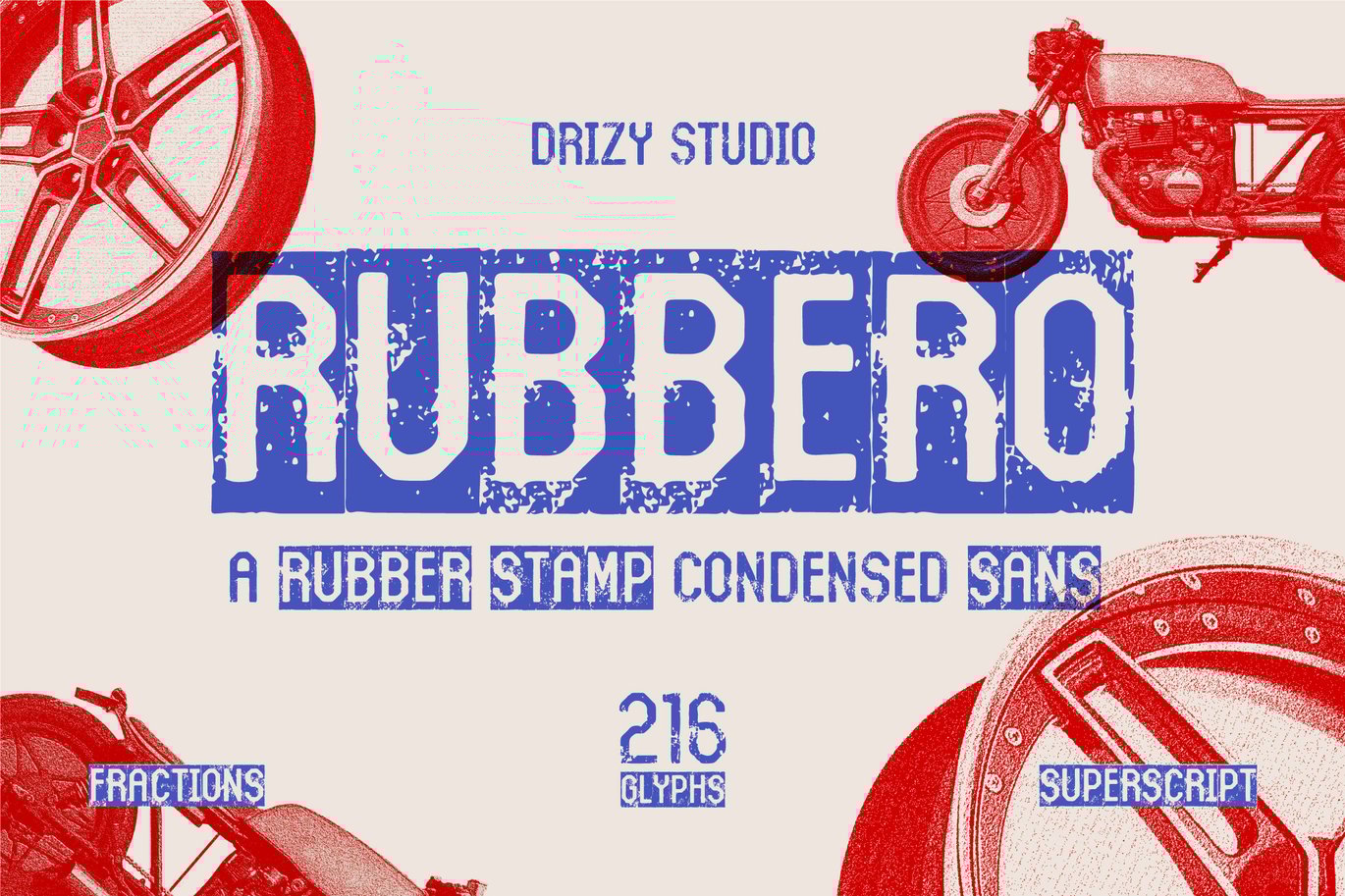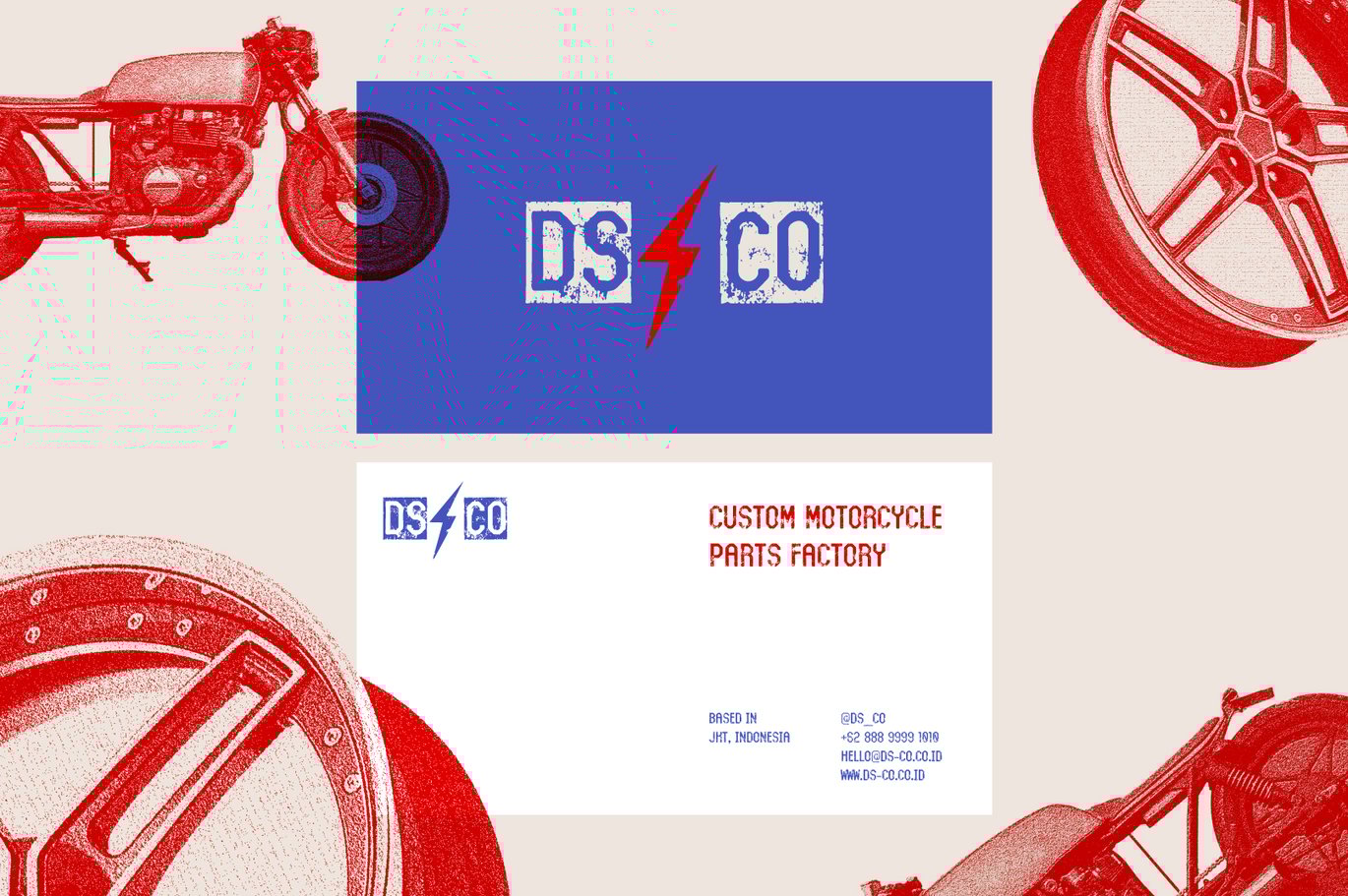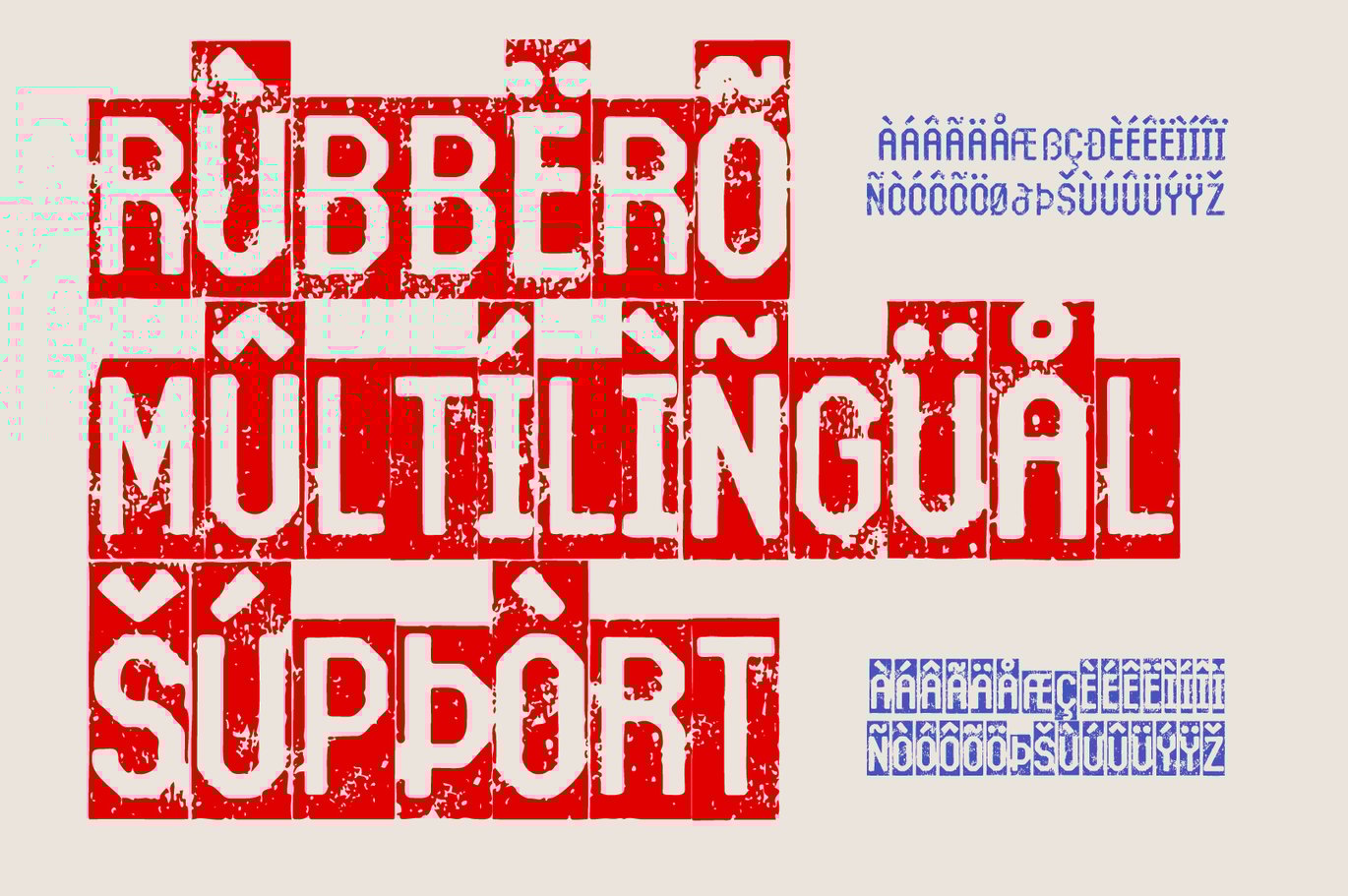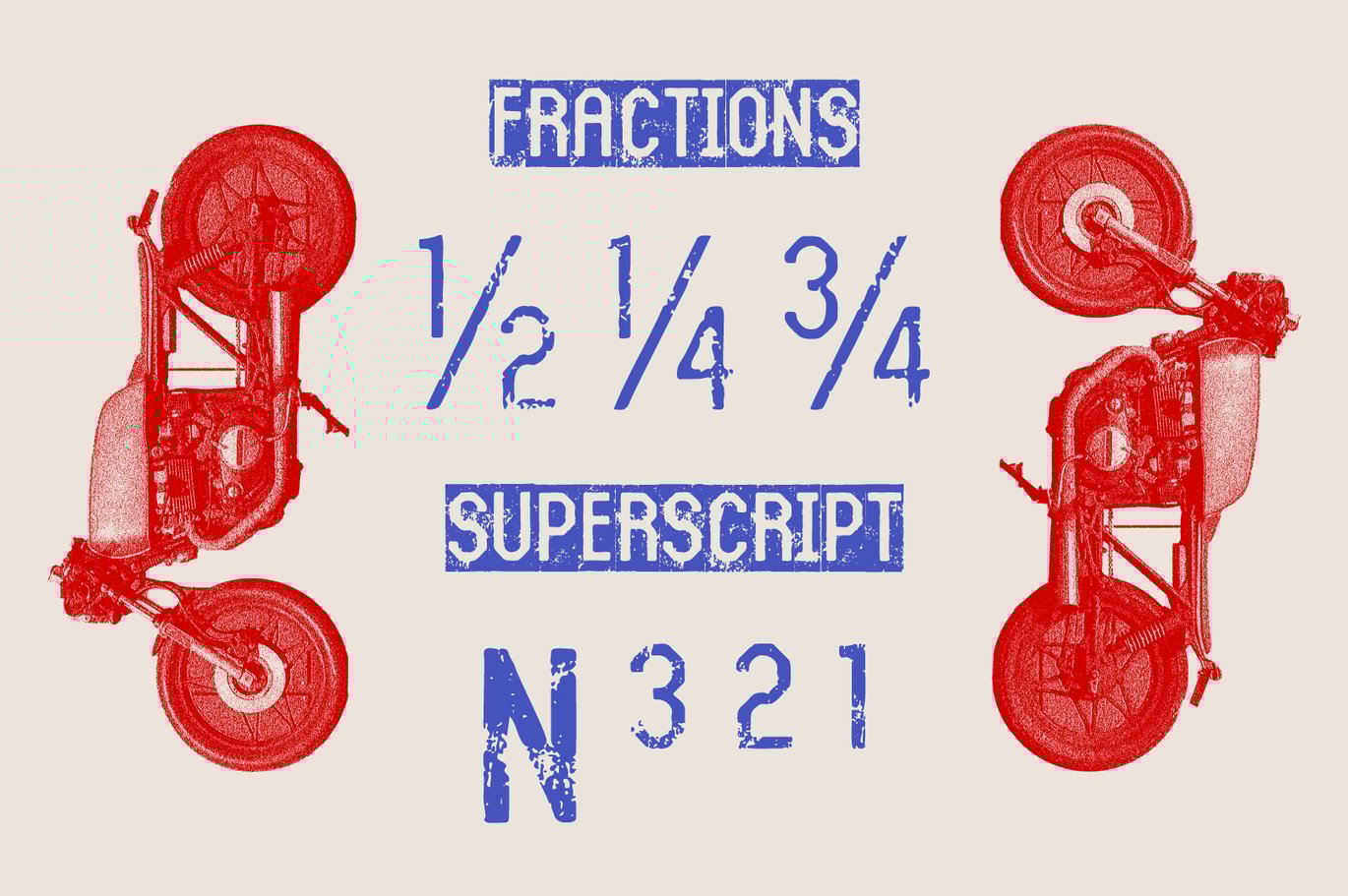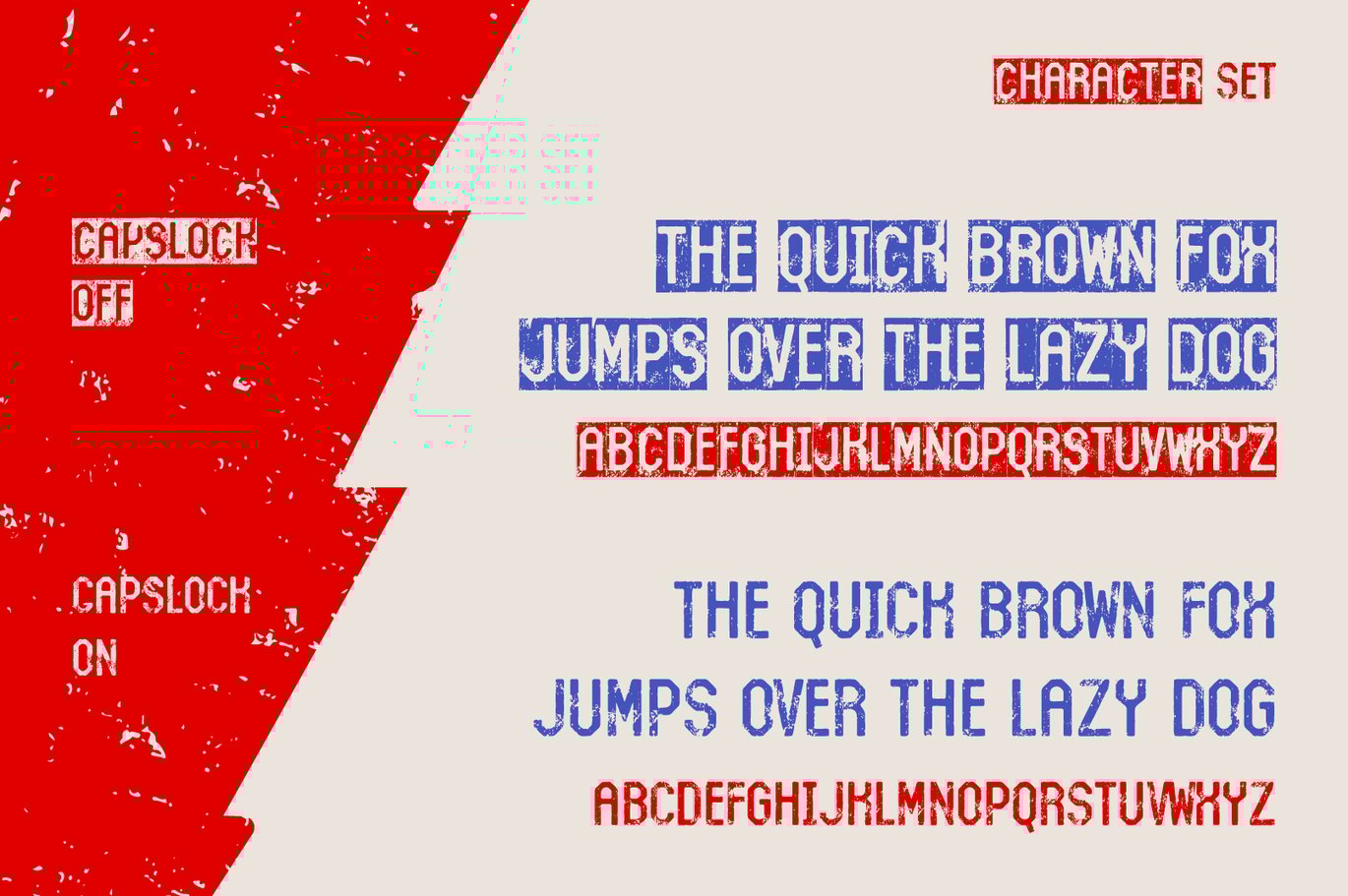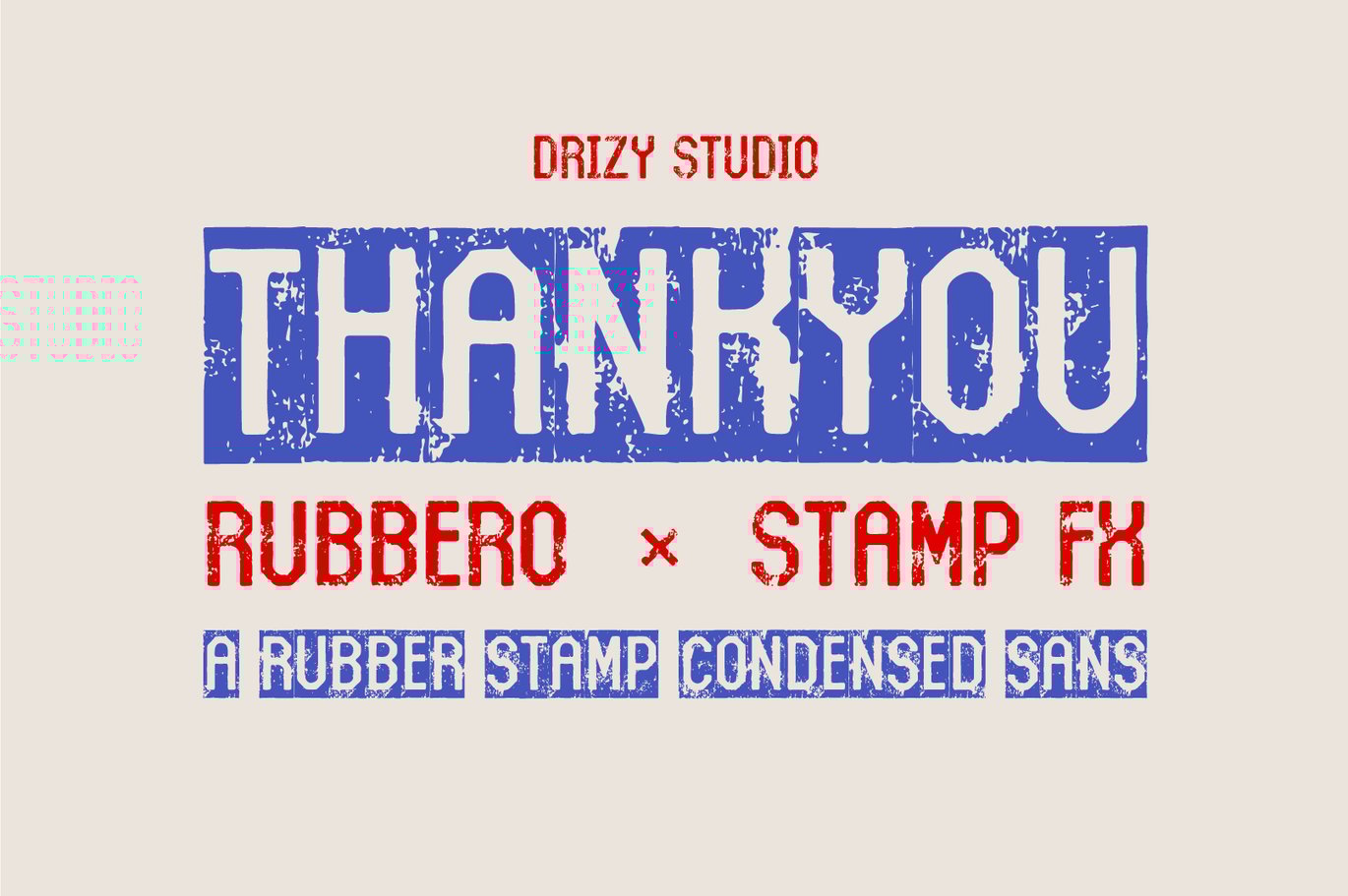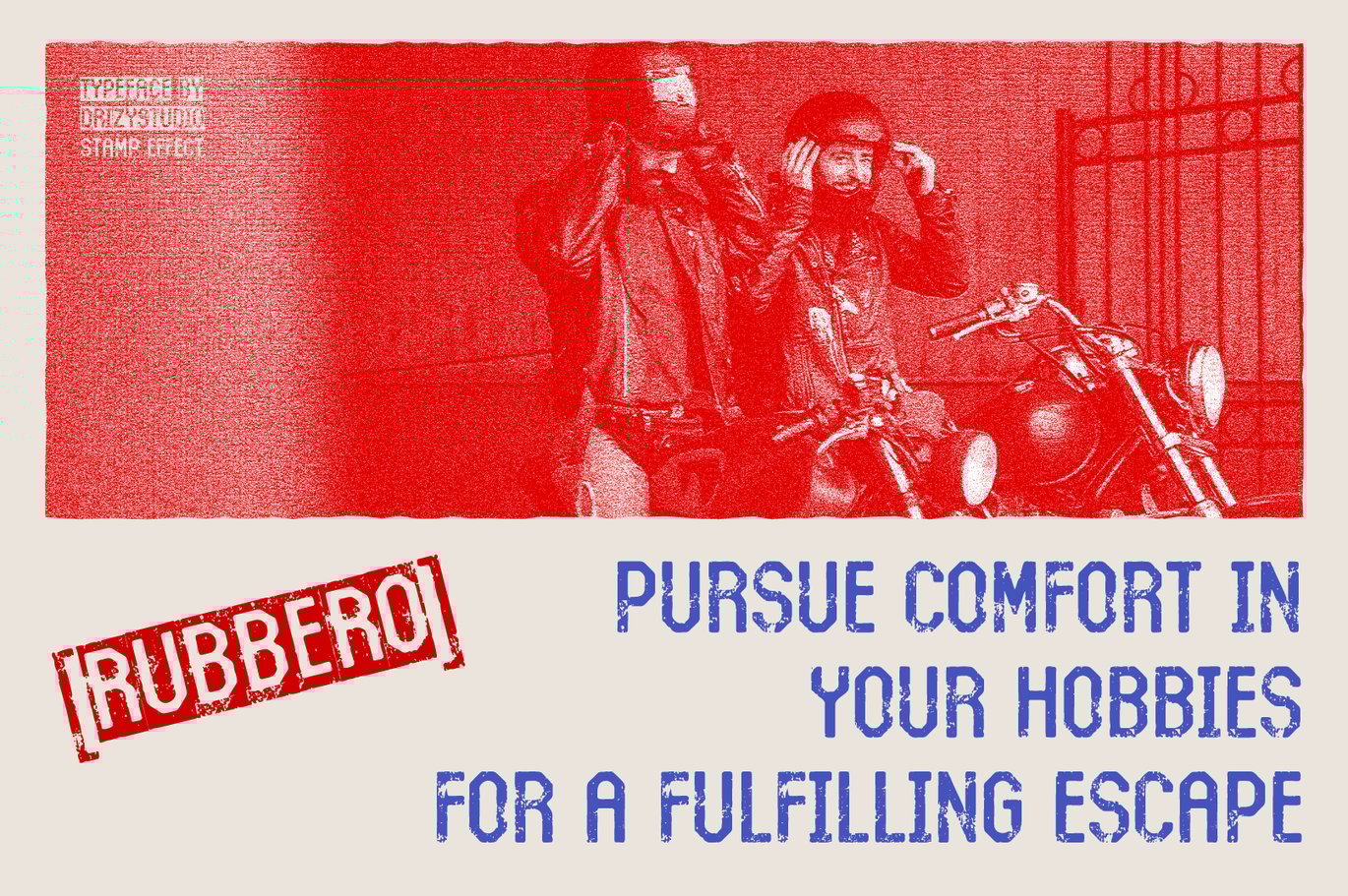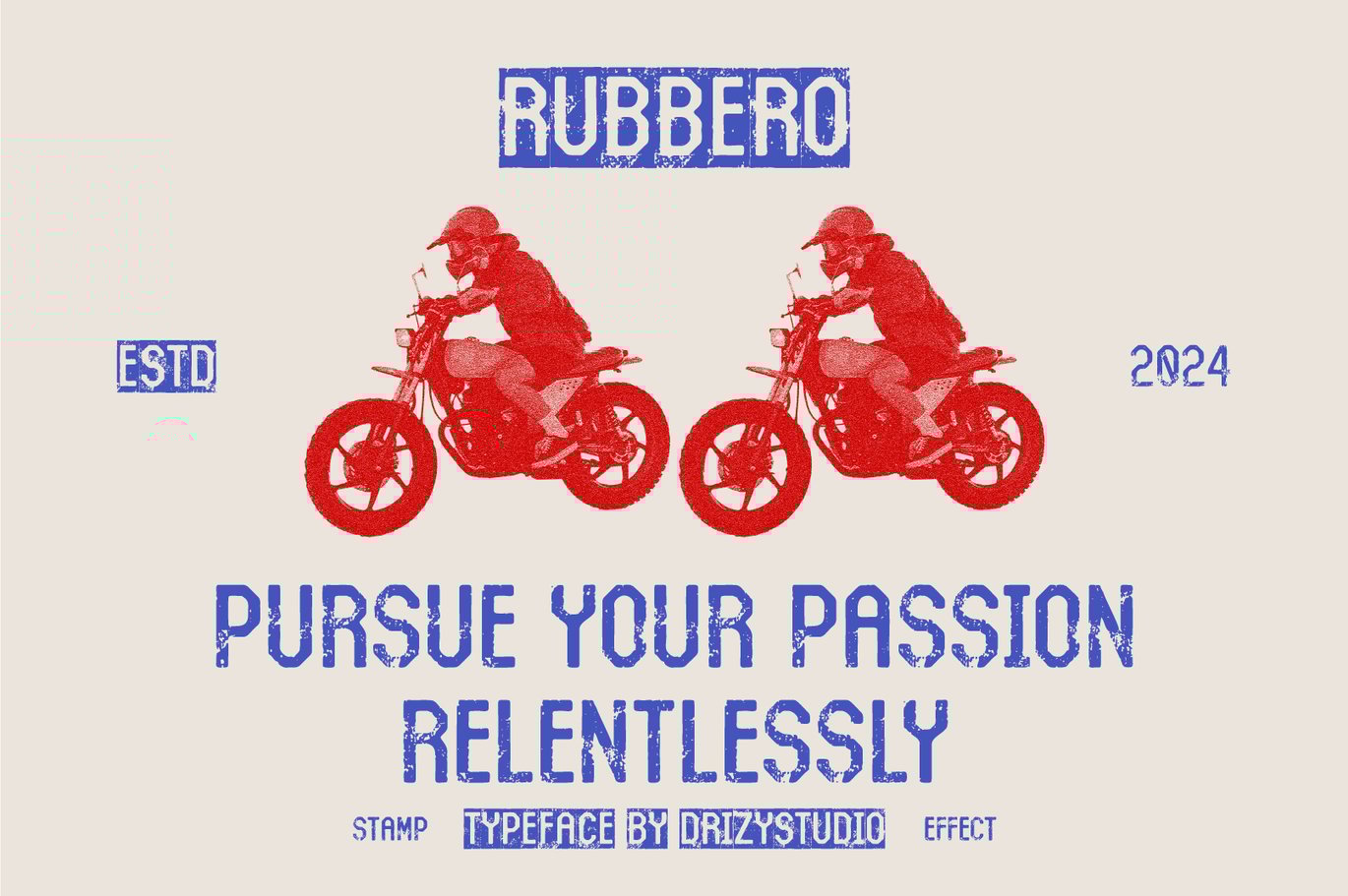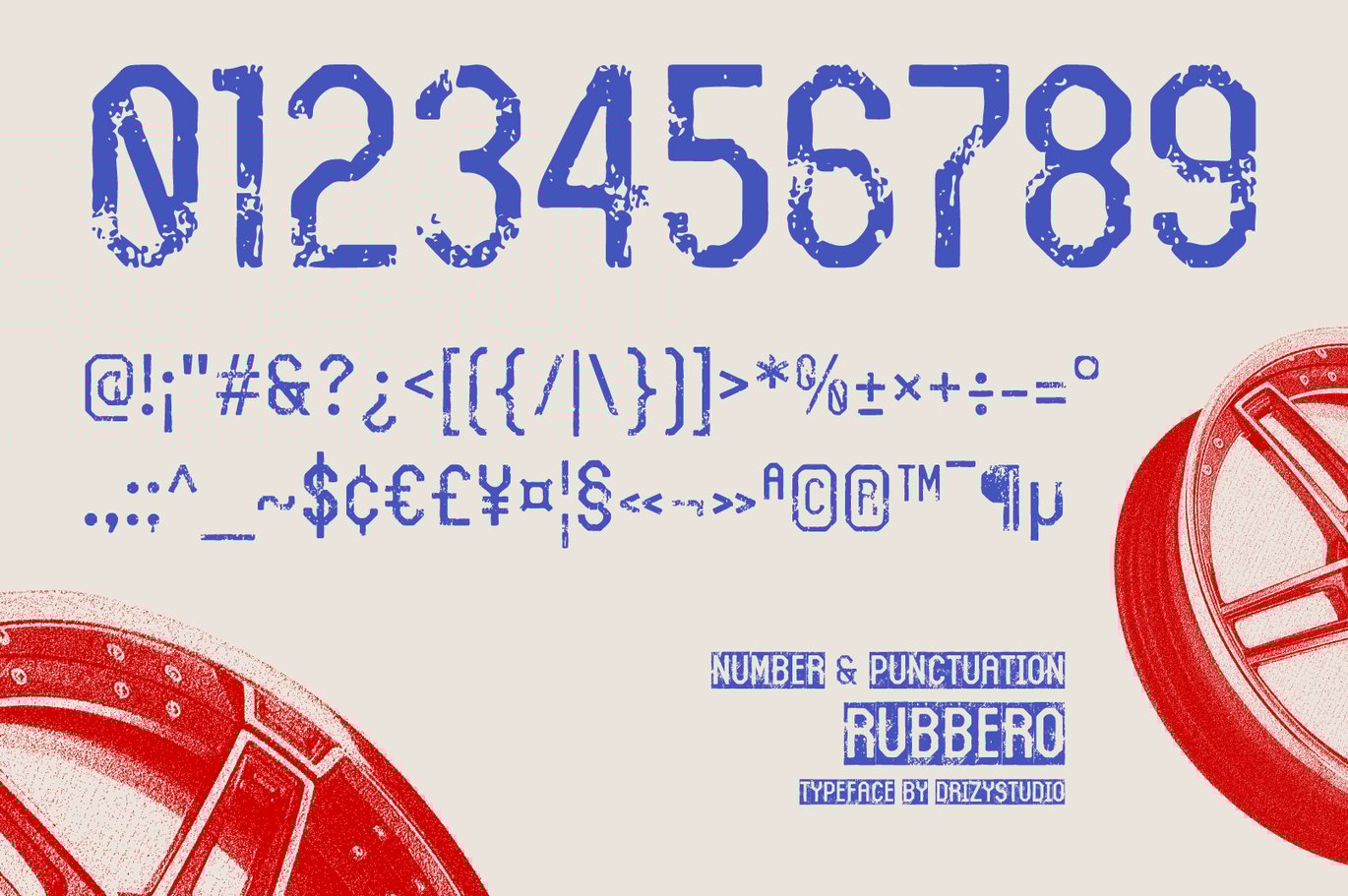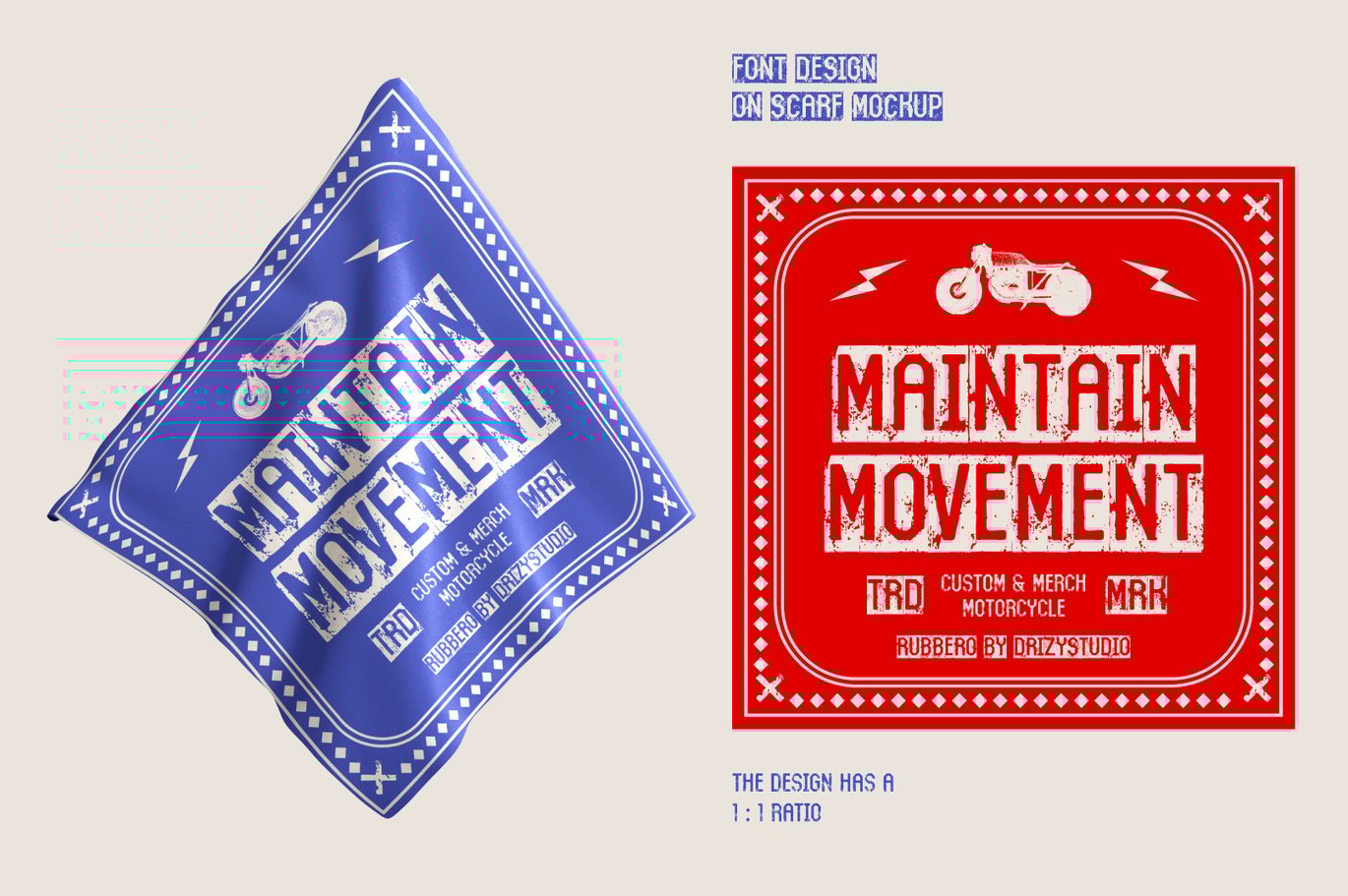
Rubbero – Rubber Stamp Condensed Font
Rubbero is a condensed style, ideal for various design projects requiring a compact and impactful aesthetic. With its distinctive rubber stamp inspired appearance, this font imbues designs with a sense of authenticity and nostalgia. The font’s unique character adds personality and charm to any design, making it a versatile choice for both digital and print applications.
Rubbero features:
Character Set (All Caps)